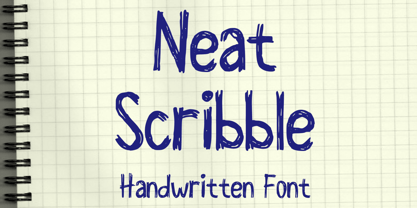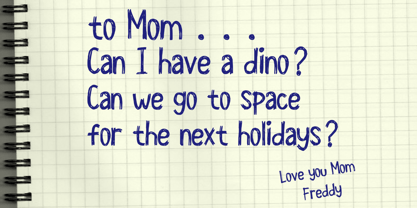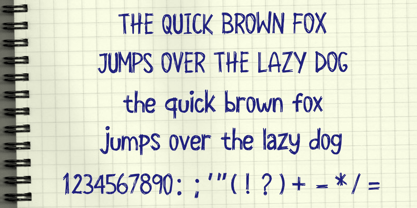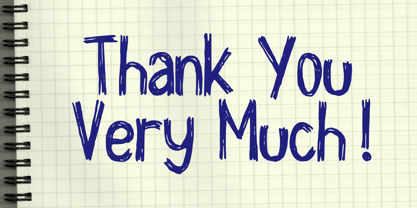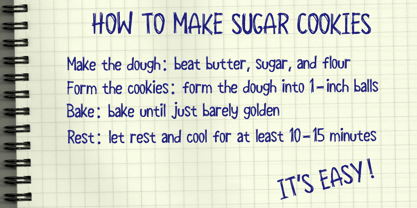
Neat Scribble
by Mvmet
The Neat Scribble Font Family was designed by Gabriel Valentinus and published by Mvmet. Neat Scribble contains 1 styles. More about this family
Neat Scribble is a playful and engaging scribble font that draws inspiration from natural handwriting. It enhances a diverse array of design projects, making it a perfect choice for creative endeavors. Ideal for applications such as stickers, t-shirt graphics, dynamic logo designs, magazine and book covers, comics, and cartoon illustrations, this font adds a stylish and creative flair to any design. With its unique characteristics, Neat Scribble offers a whimsical touch that will make your projects stand out.
Designers: Gabriel Valentinus
Foundry: Mvmet